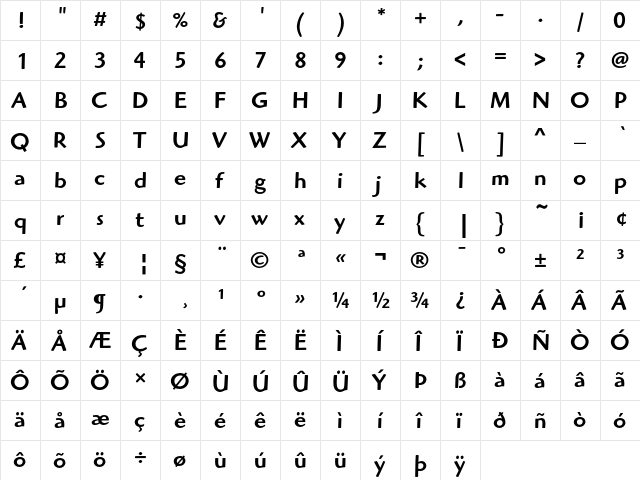
ITC Highlander Medium
Design Context for ITC Highlander Typeface
ITC Highlander is a composed and adaptable typeface that performs quietly and consistently across a wide range of design contexts.